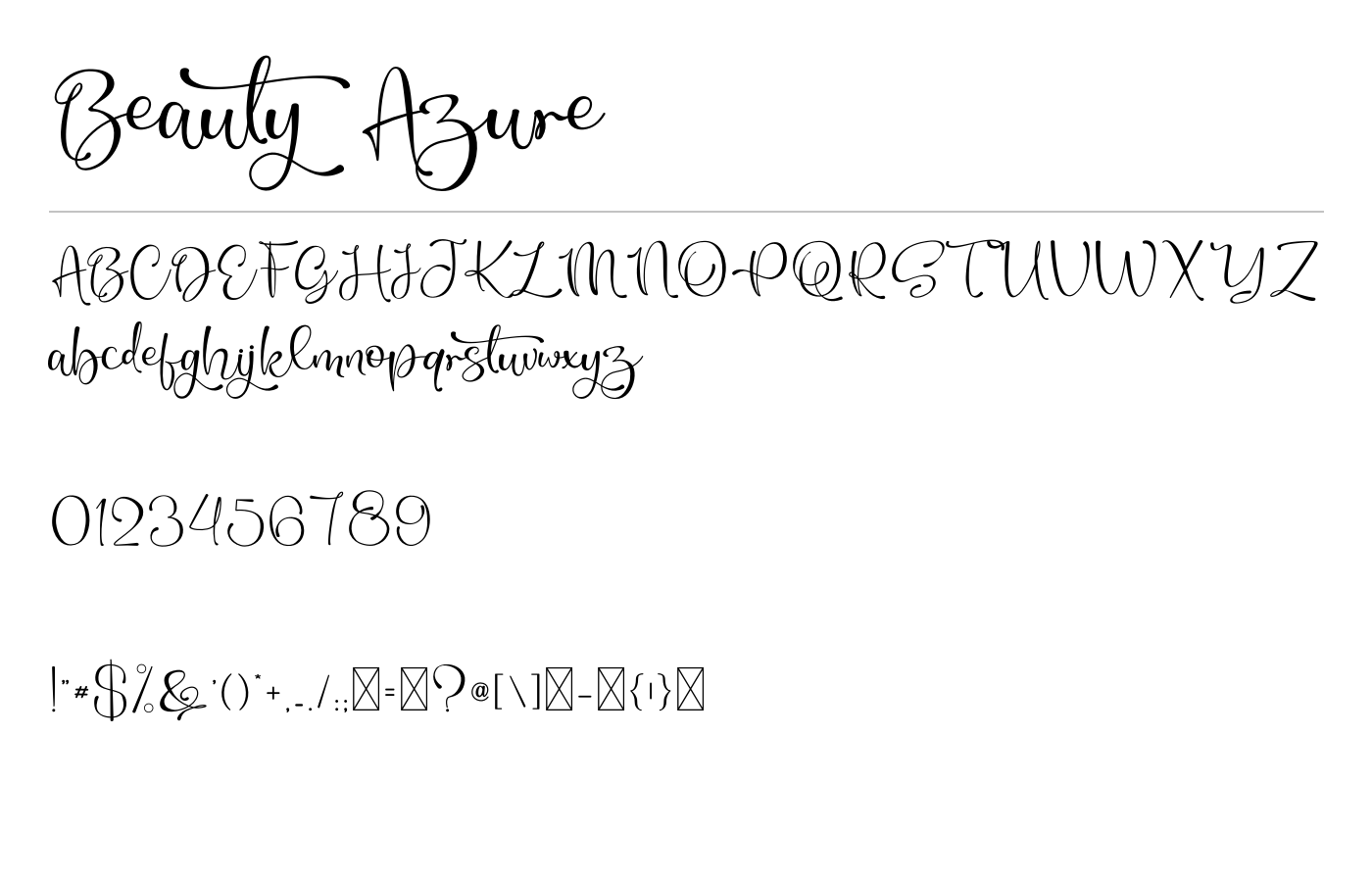
Beauty Azure is a delicate and elegant script font characterized by its graceful, flowing letterforms and fine, thin strokes. Its playful yet refined style works beautifully for projects that require a personal, feminine touch, making it ideal for wedding invitations, beauty branding, and sophisticated packaging. With its charming curves and legible design, Beauty Azure adds a sense of handmade luxury and creativity to any design.
Beauty Azure Font
About Beauty Azure Font